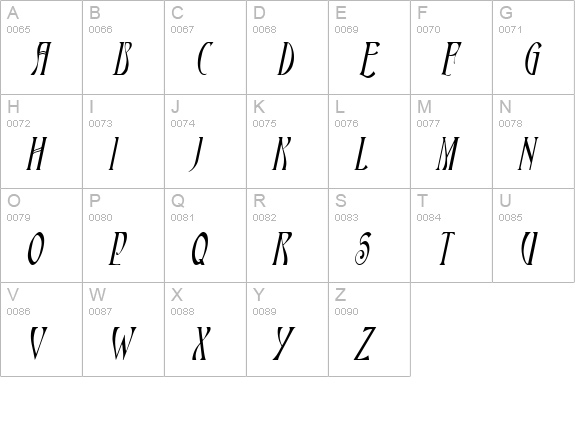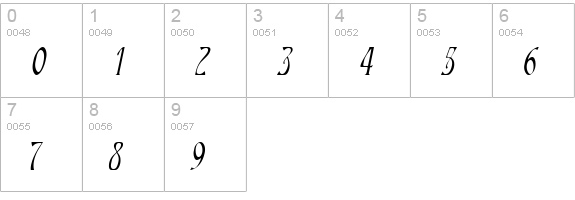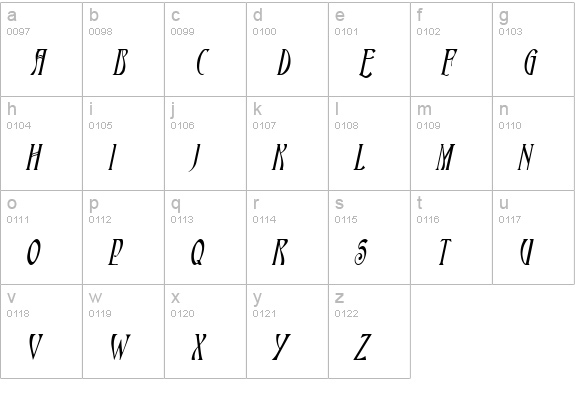
NouveauCondensed Italic Font Details
NouveauCondensed Italic is a distinctive, italic variant in the NouveauCondensed typeface family \xE2\x80\x94 well suited to design and typography projects.
NouveauCondensed Italic font is a sleek and sophisticated typeface that exudes elegance and modernity. Its italicized form adds a touch of flair and style to any design project, making it perfect for use in branding, advertising, and editorial layouts. This font features condensed letterforms that are both space-saving and eye-catching, making it ideal for creating impactful headlines and attention-grabbing text. The slanted italic design adds a dynamic and energetic feel to the text, making it stand out from the crowd. NouveauCondensed Italic font is available for free download at FontsMarket.com, allowing designers and creatives to access this high-quality typeface without any cost. With its versatility and striking appearance, NouveauCondensed Italic font is a must-have addition to any designer's toolkit. Elevate your projects with this stylish and modern font today!